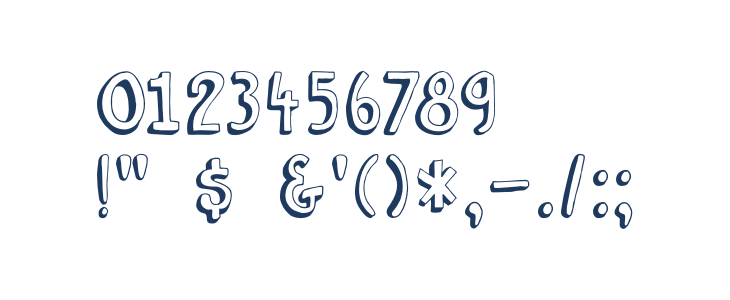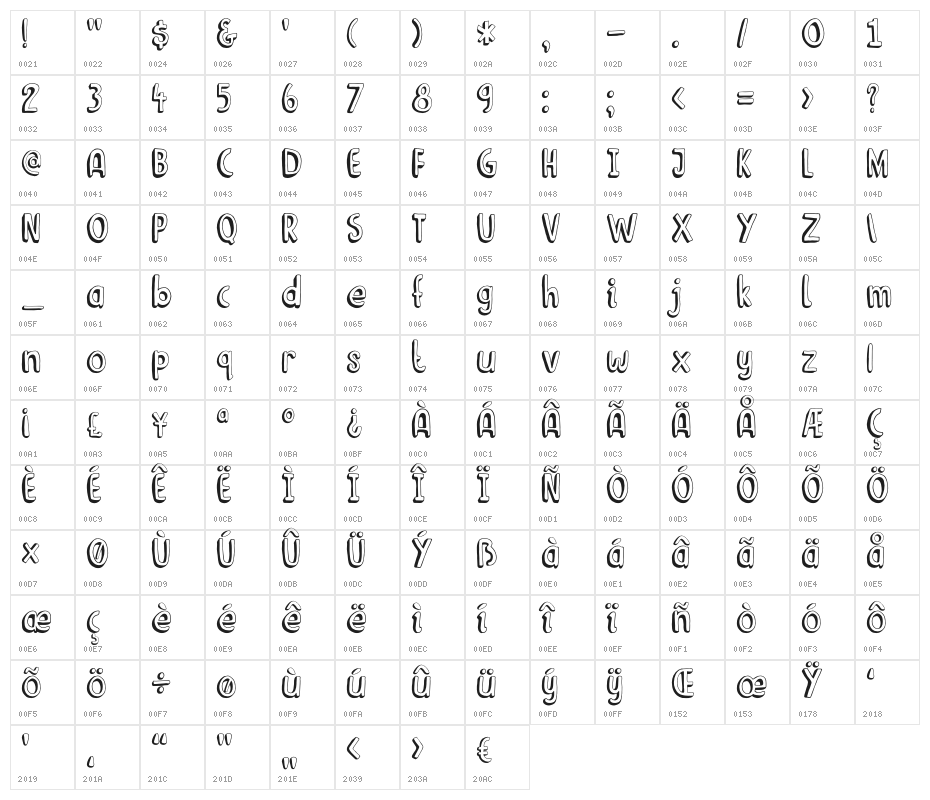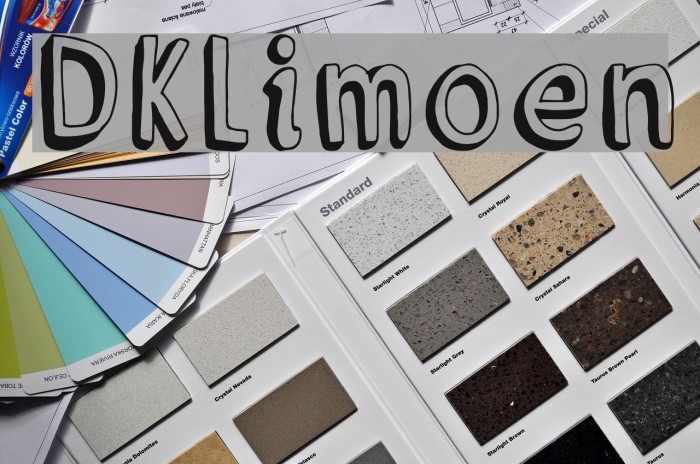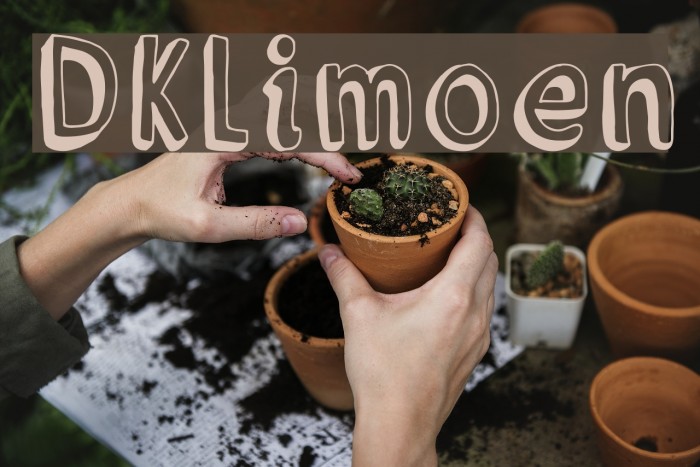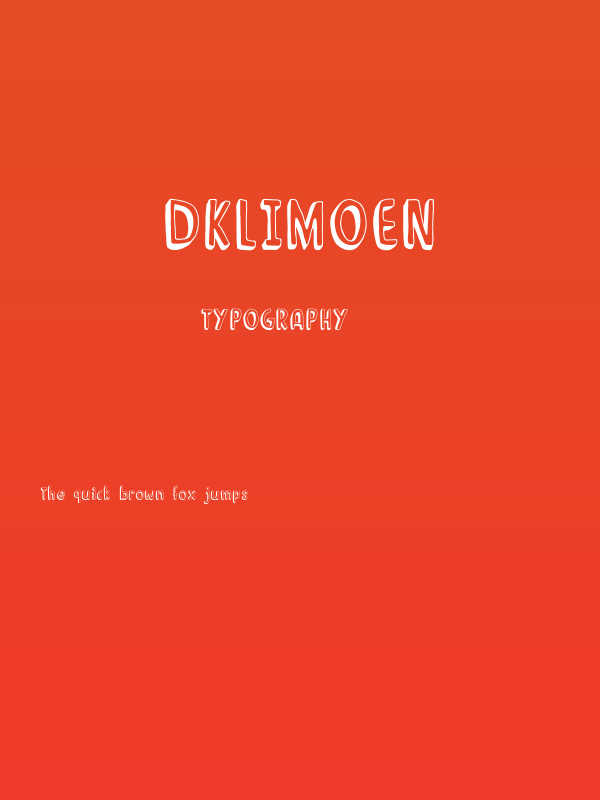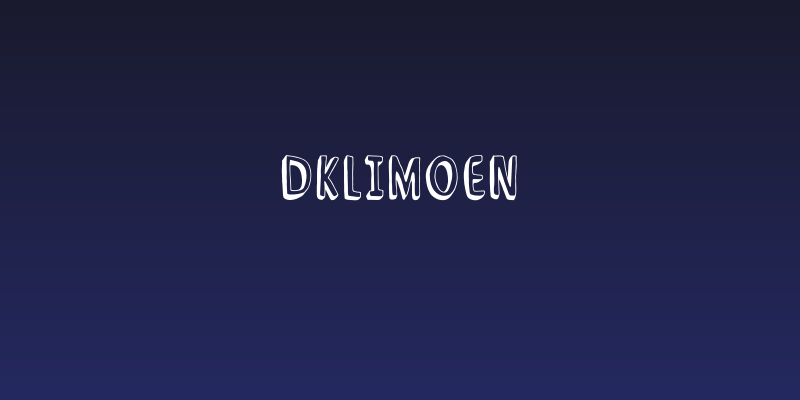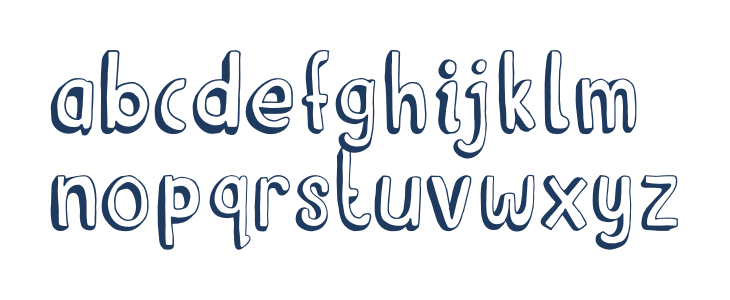
DKLimoen Font
DKLimoen Description
This playful and bold font features a hand-drawn style with a three-dimensional effect, giving each character a unique and dynamic appearance. The letters are outlined with a thick black line, creating a shadow effect that adds depth and visual interest. The font maintains a consistent weight throughout, with rounded edges that soften its overall look. The uppercase and lowercase letters are well-balanced, and the numerals are clear and easy to read. Special characters are included, maintaining the same playful style. This font is perfect for projects that require a fun and informal touch.
| Overall Style | Playful, Hand-drawn |
| Use Case | Headlines, Posters, Branding |
| Proposed Projects | Ideal for children's books, playful branding, posters, and creative invitations. |